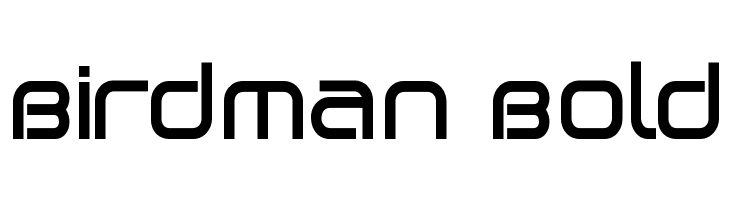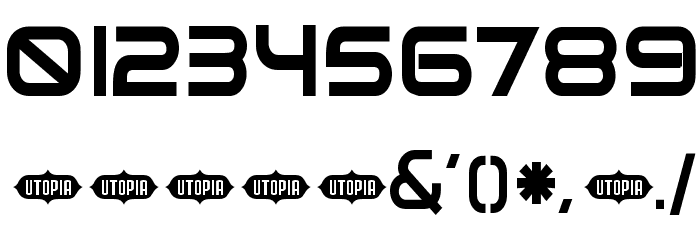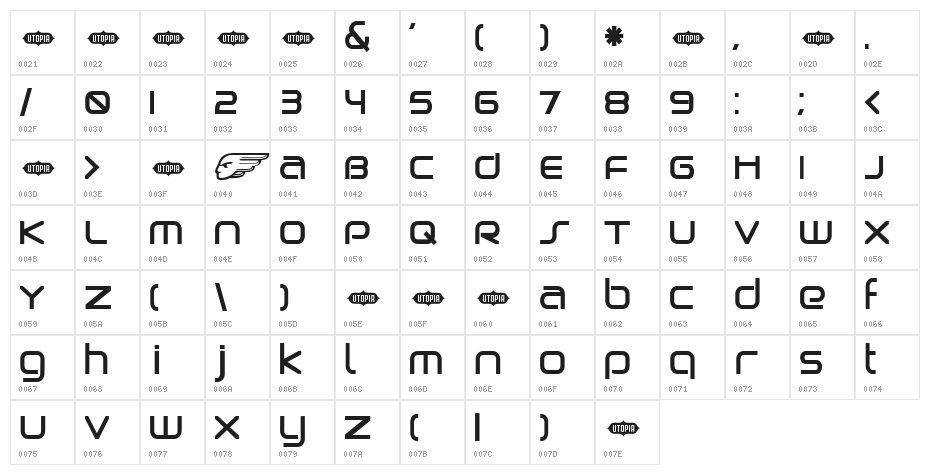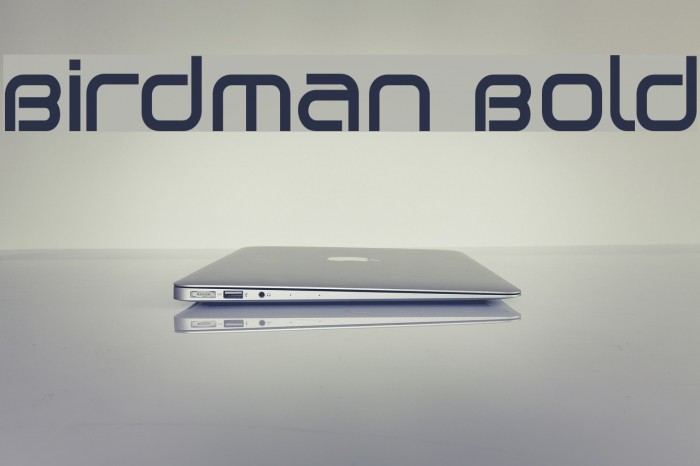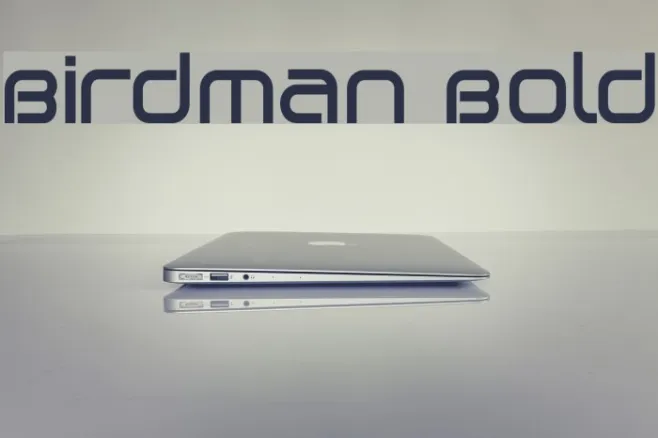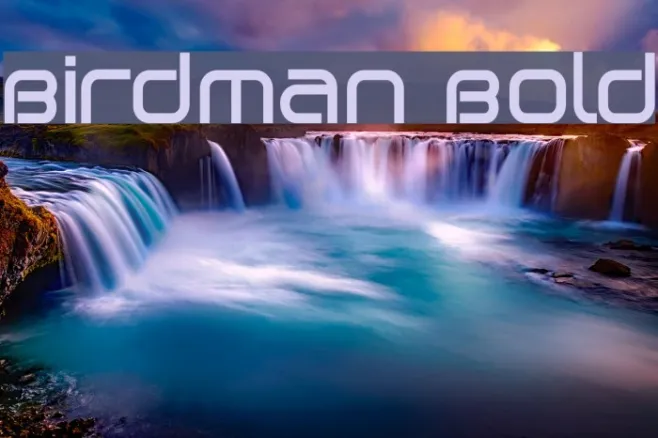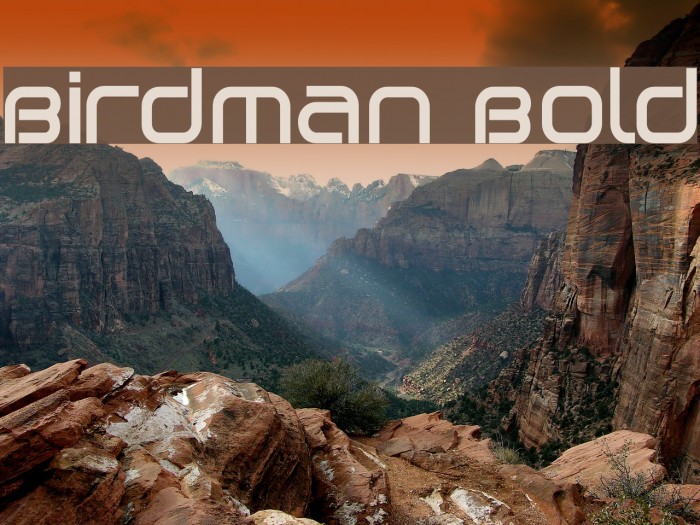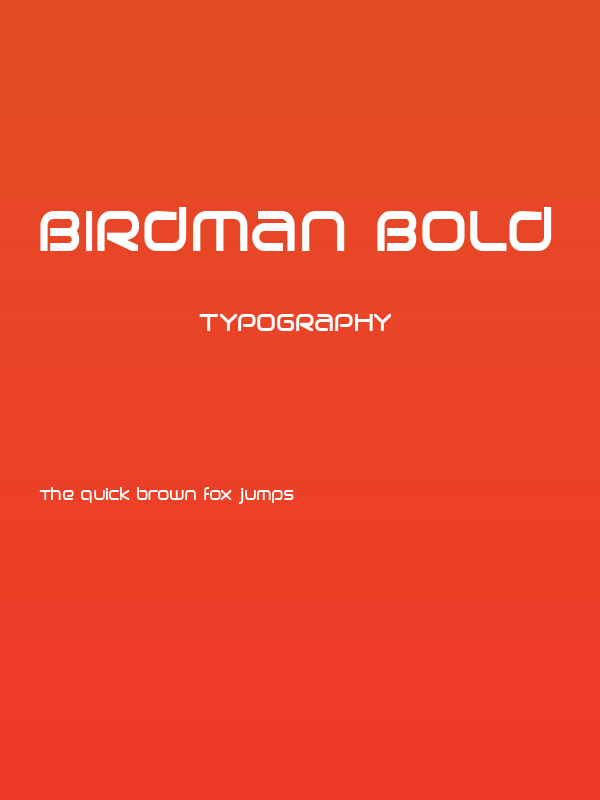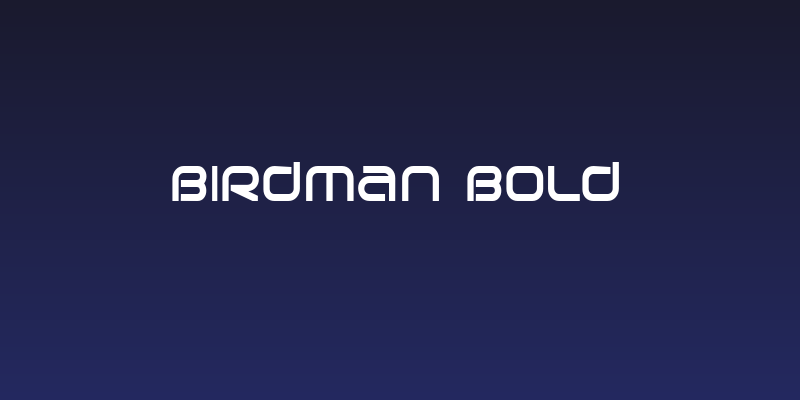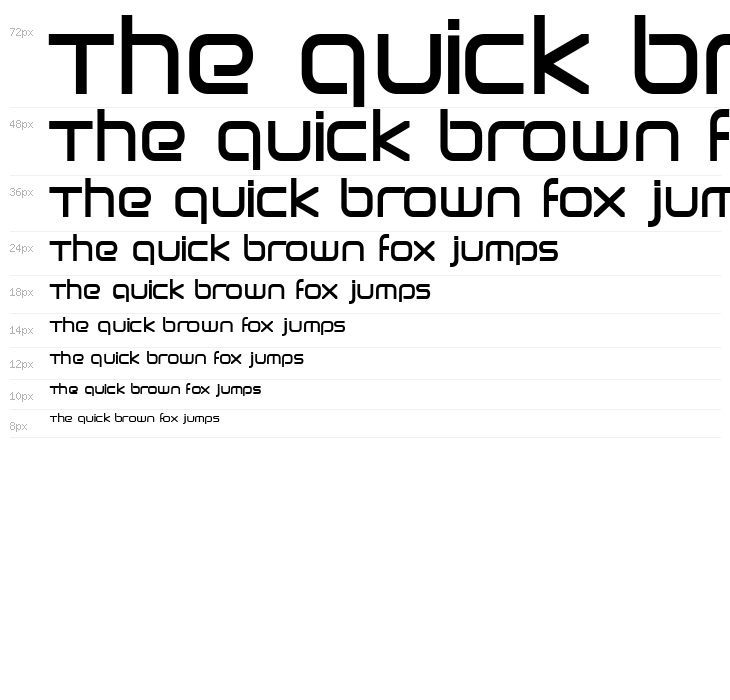
Birdman Bold Font
Birdman Bold Description
This font features a modern, geometric design with a bold presence. The characters are constructed with smooth curves and straight lines, creating a sleek and futuristic appearance. The uppercase and lowercase letters maintain a consistent style, with a uniform stroke width that adds to the font's clean and polished look. The numerals are equally bold and share the same geometric structure, ensuring a cohesive visual experience. Special characters are included, maintaining the same design ethos, making this font versatile for various applications.
Use CaseHeadlines, Logos, Digital Interfaces
Proposed ProjectsIdeal for technology branding, futuristic designs, digital interfaces, and modern advertising campaigns.